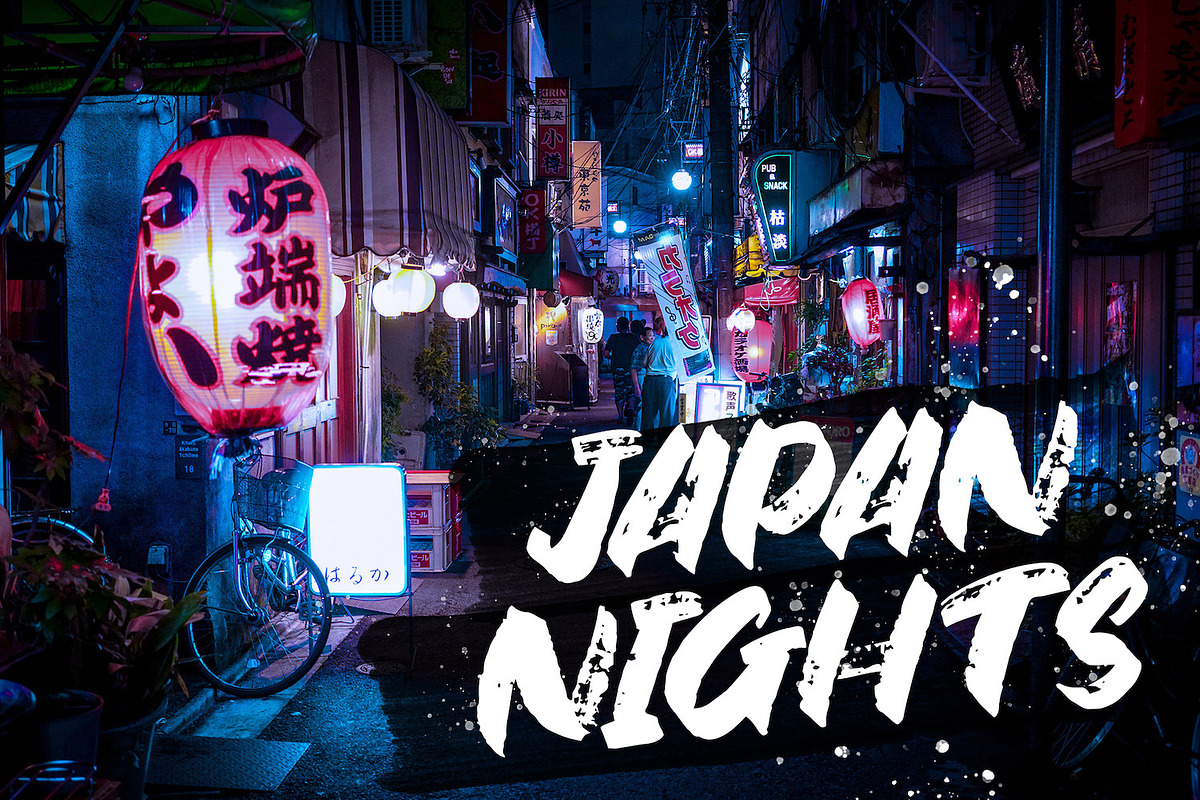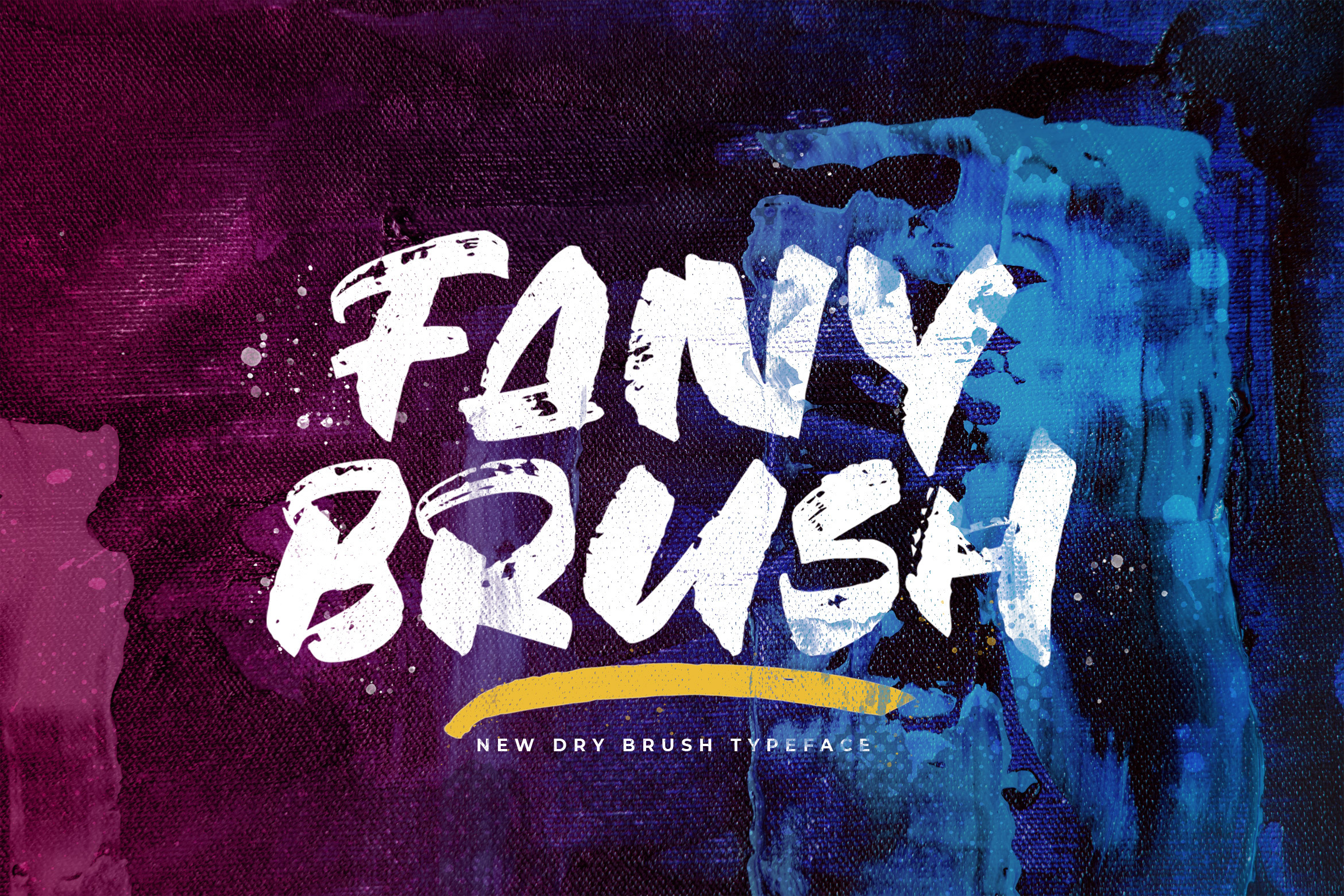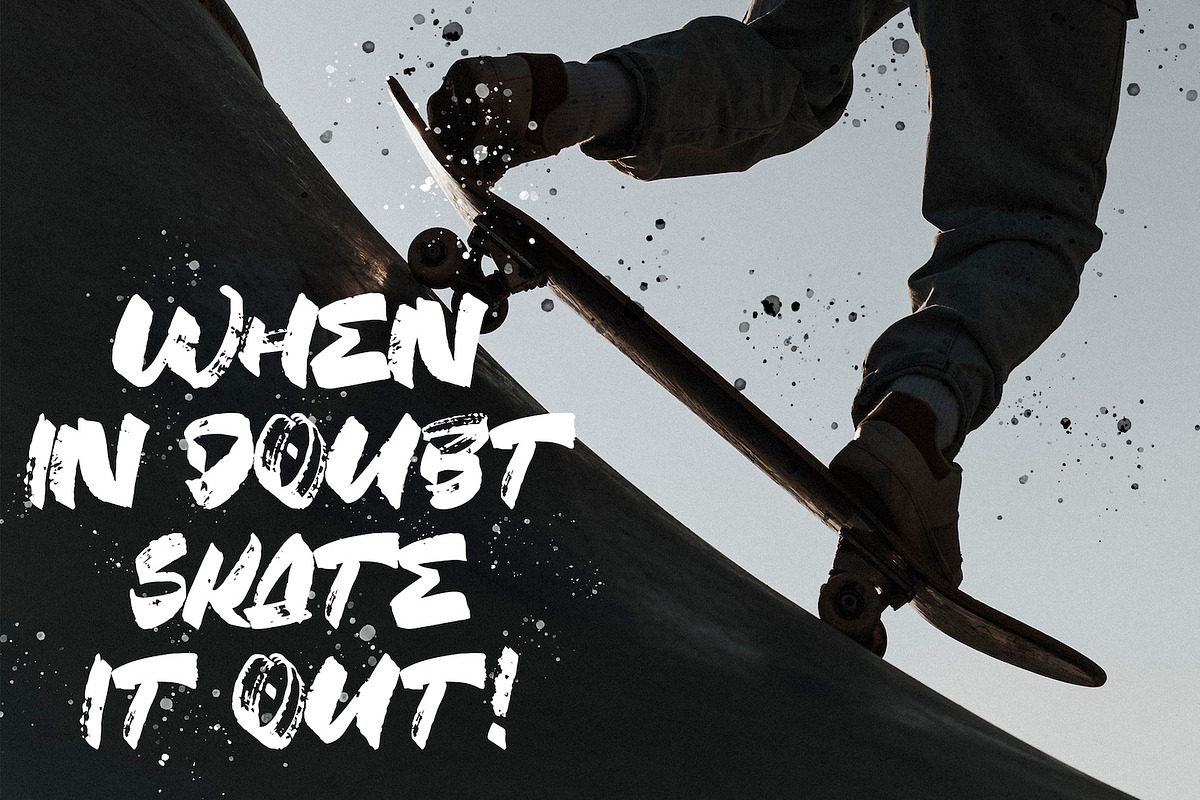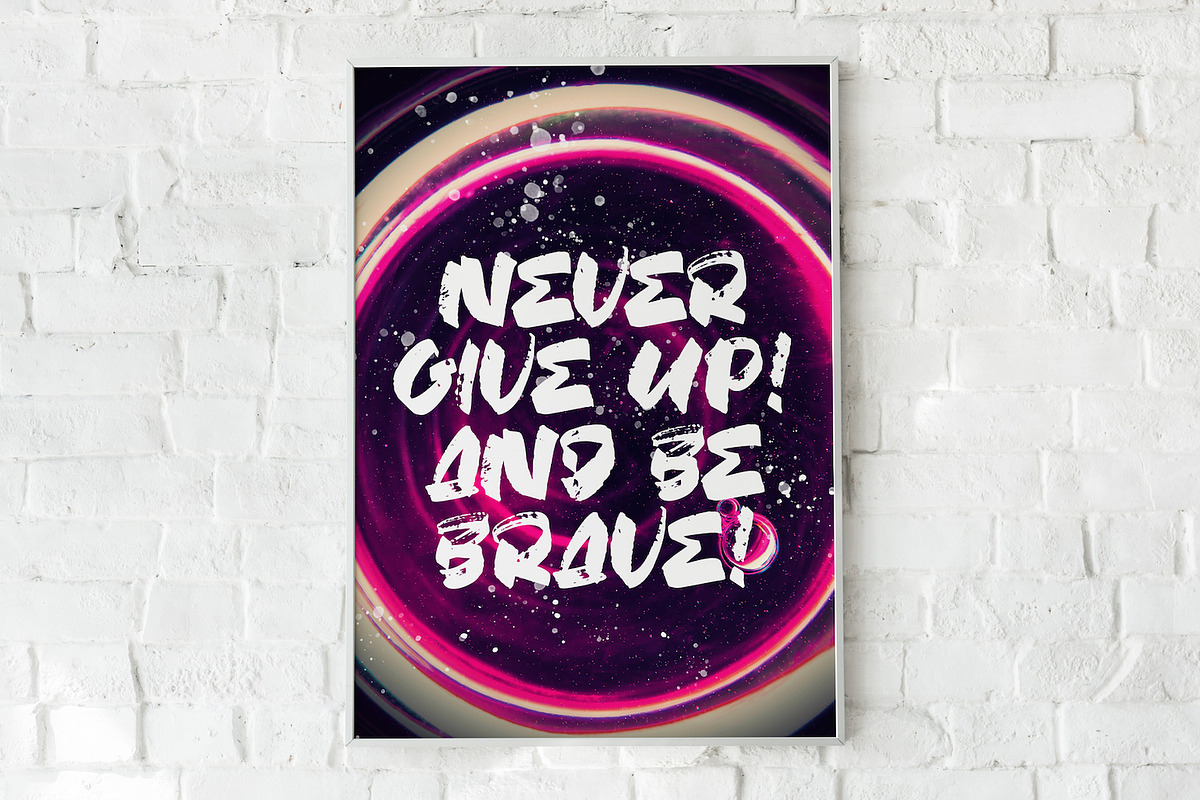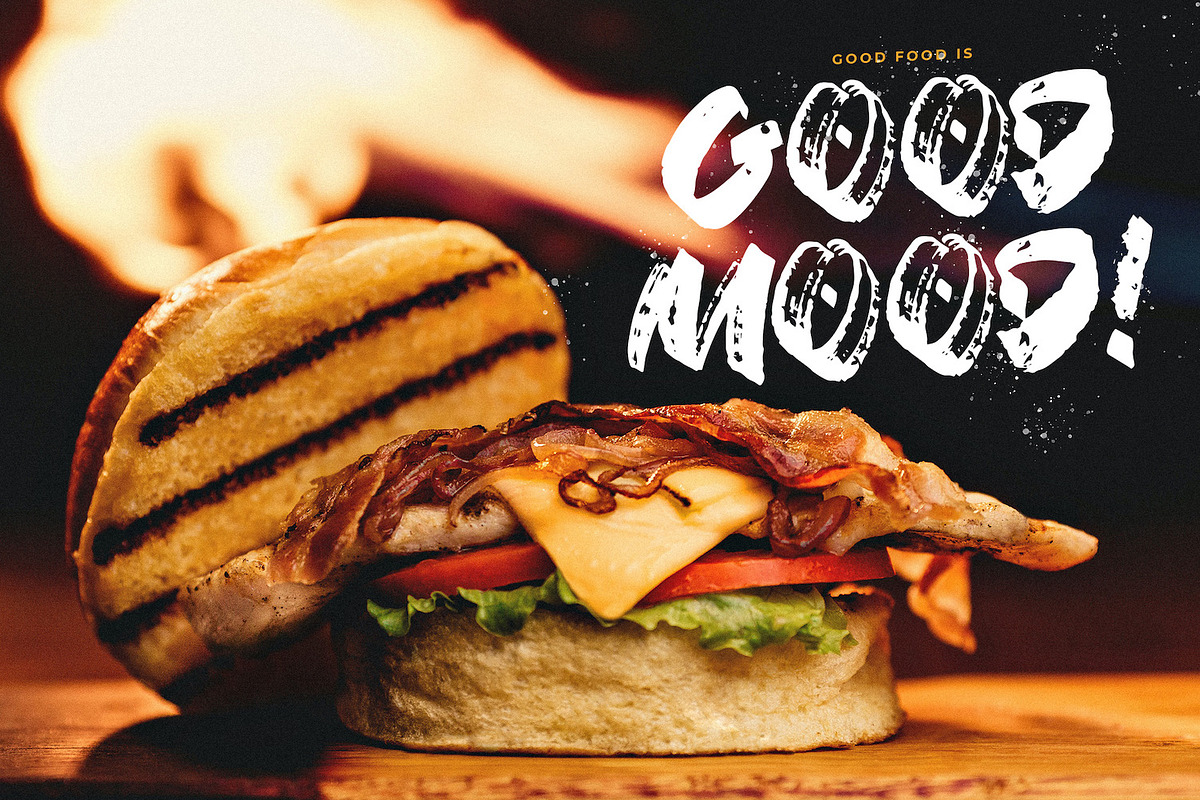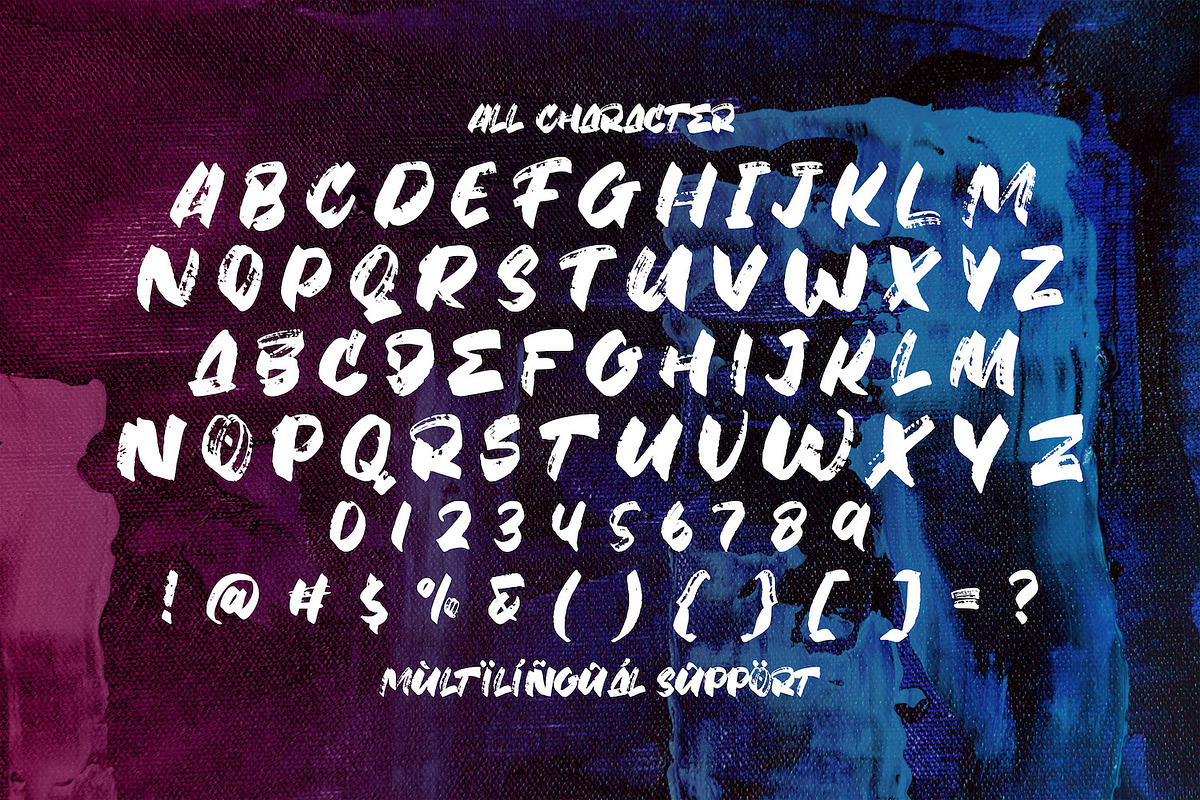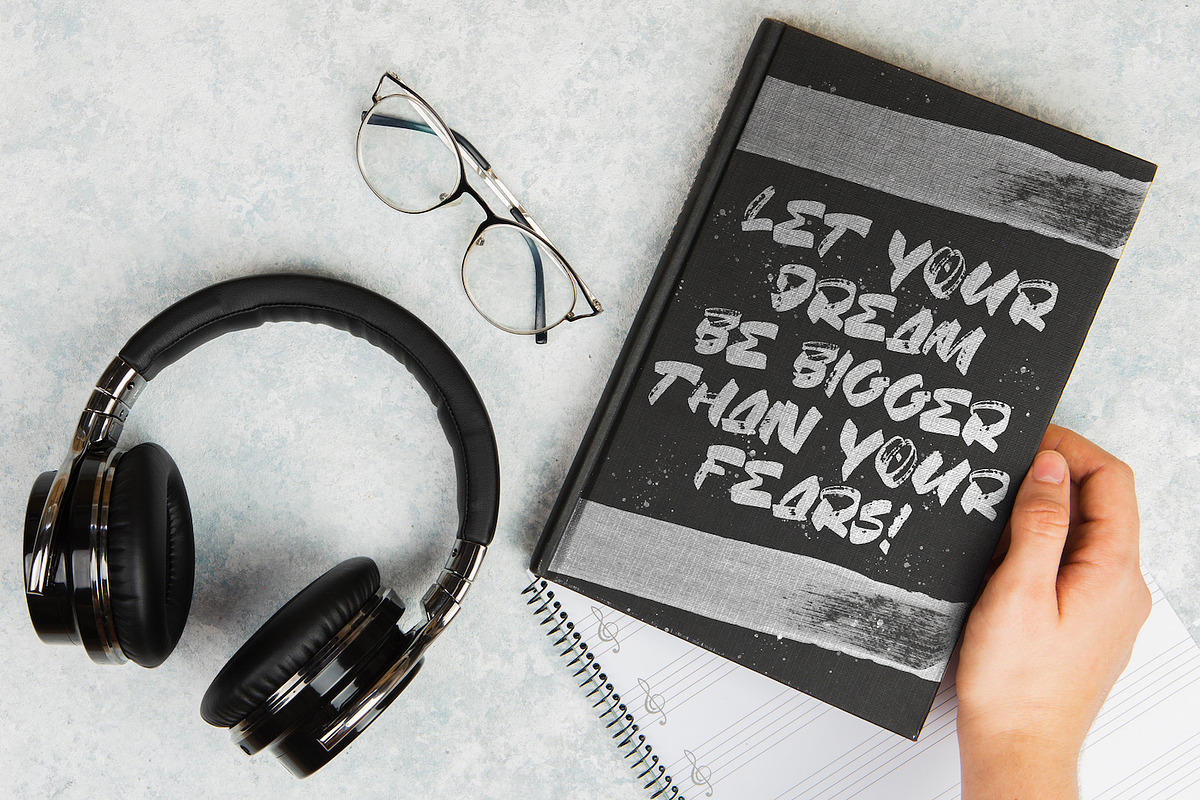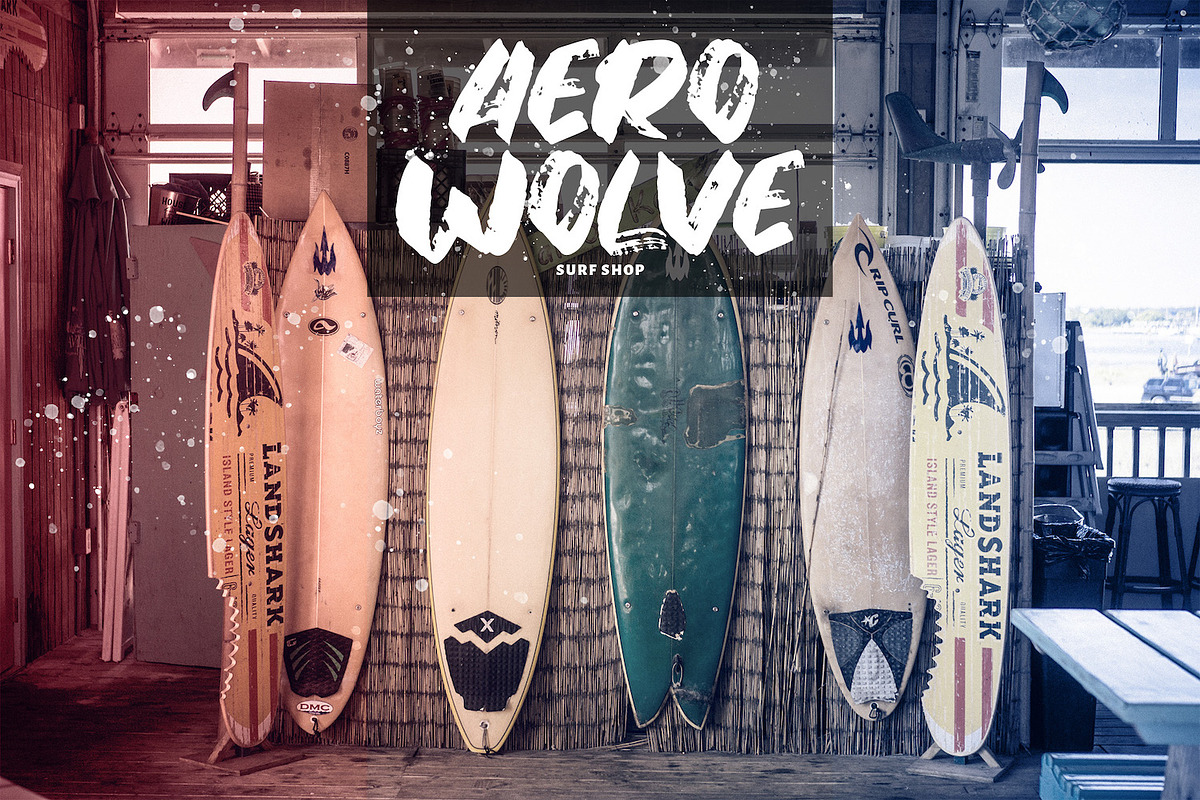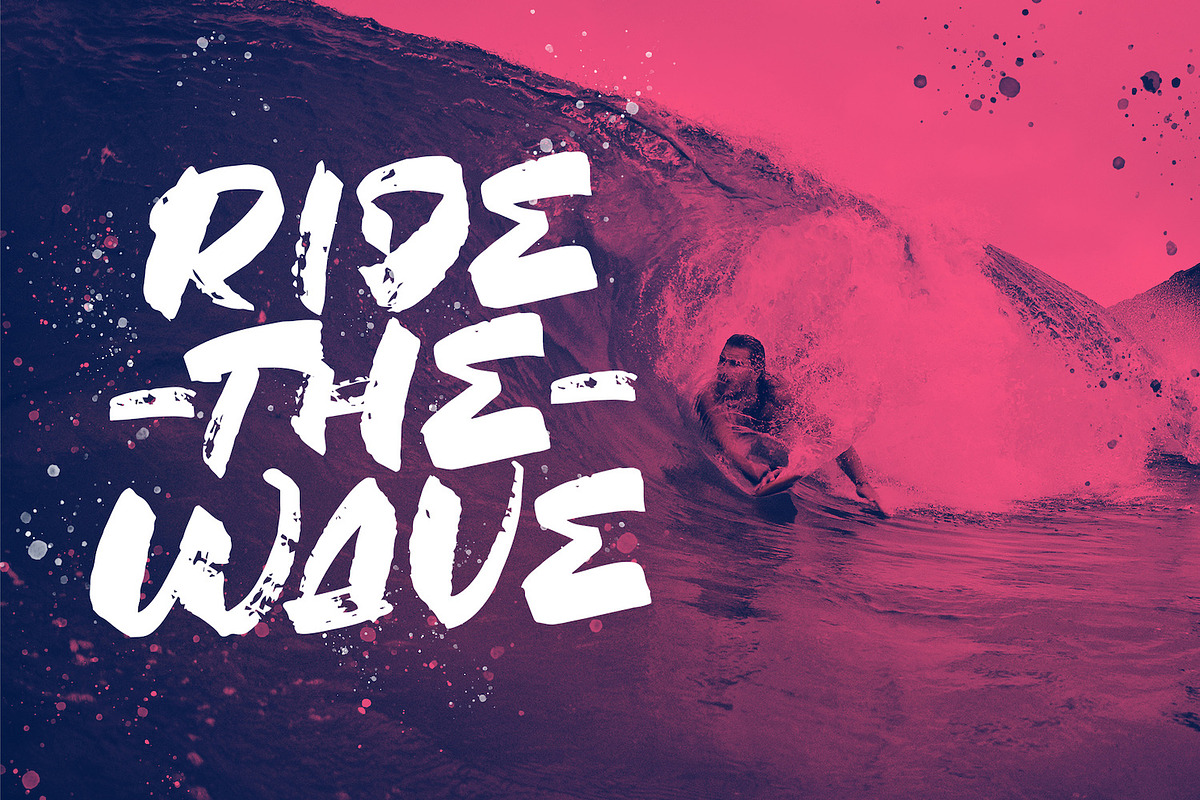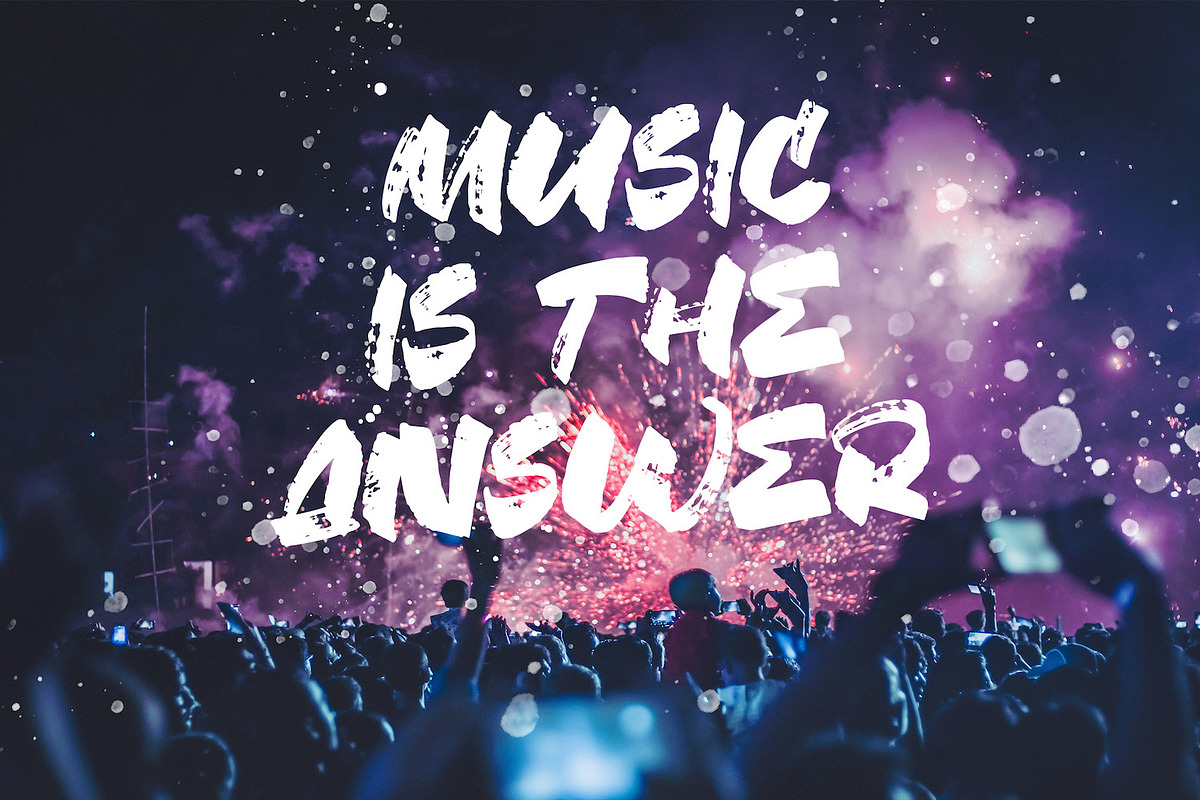
Fany Brush - Textured Brush Font
Introducing Fany Brush - Textured Brush Font
Fany Brush is a textured handbrush font. Get inspired by its unique and beautiful style and add it to your favorite designs!